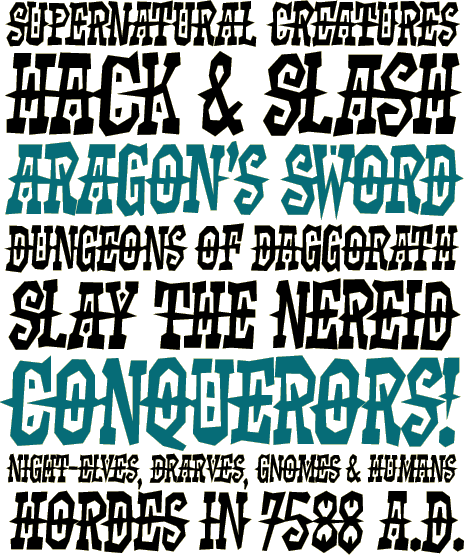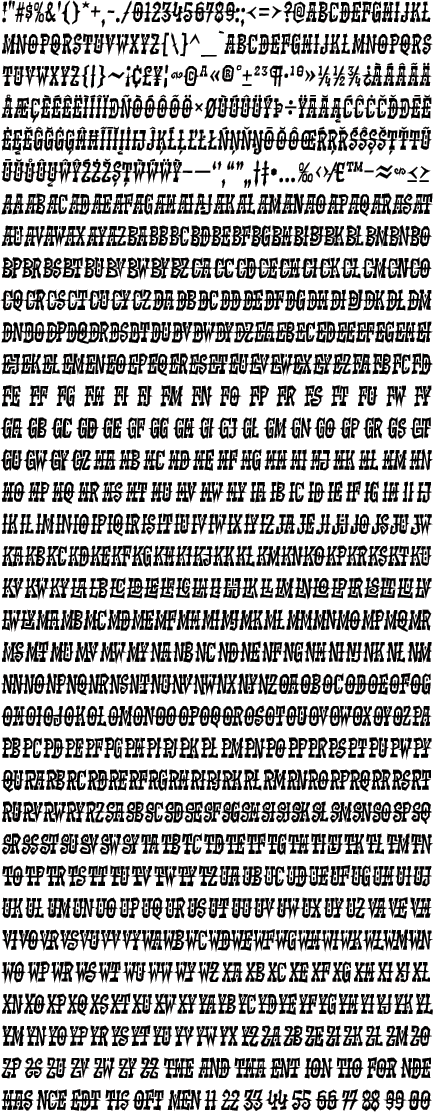
kadonk
It’s the great and brutal Kadonk! In OpenType savvy applications, letter pair autoligs help break up the monotony of obviously repeating letters.